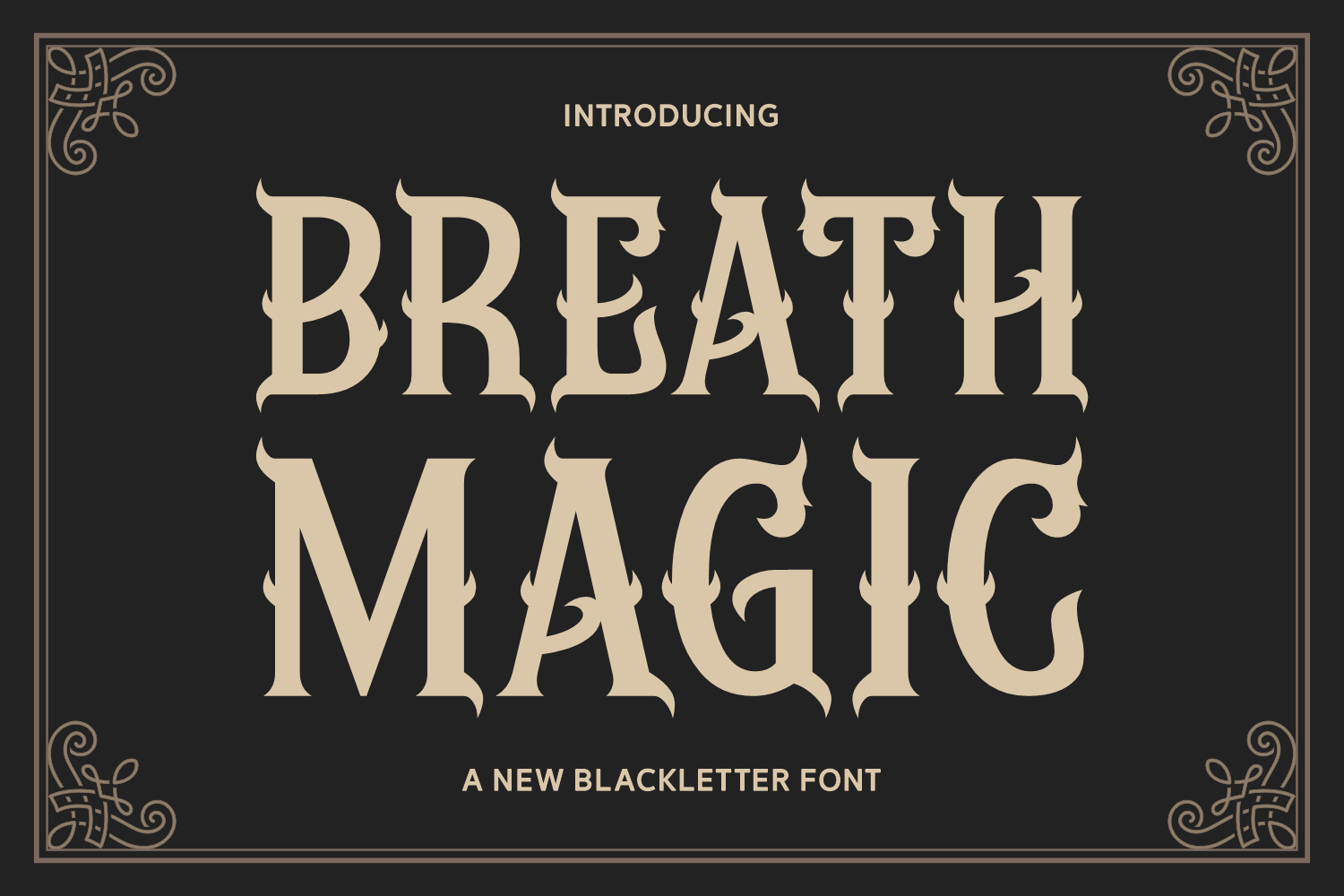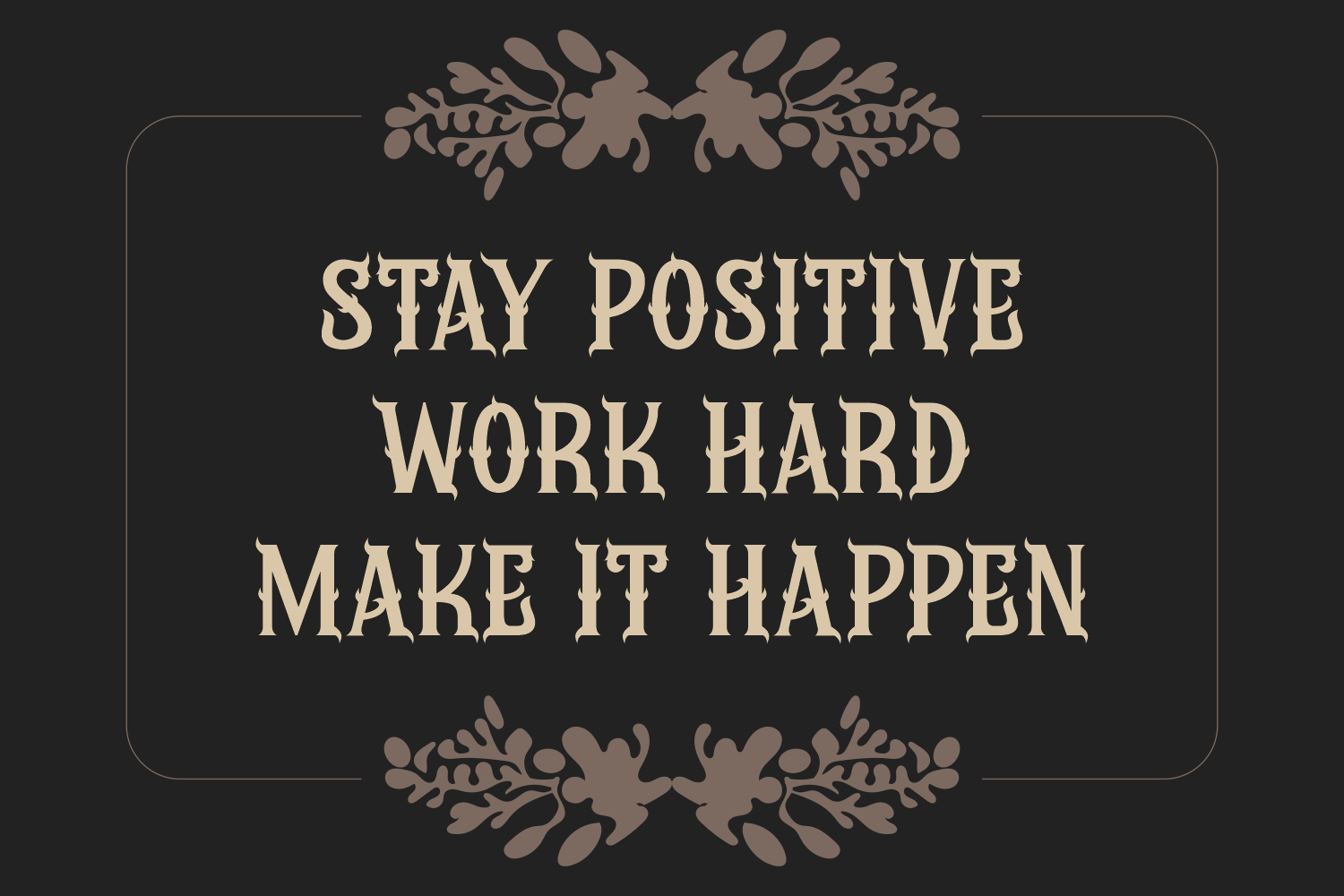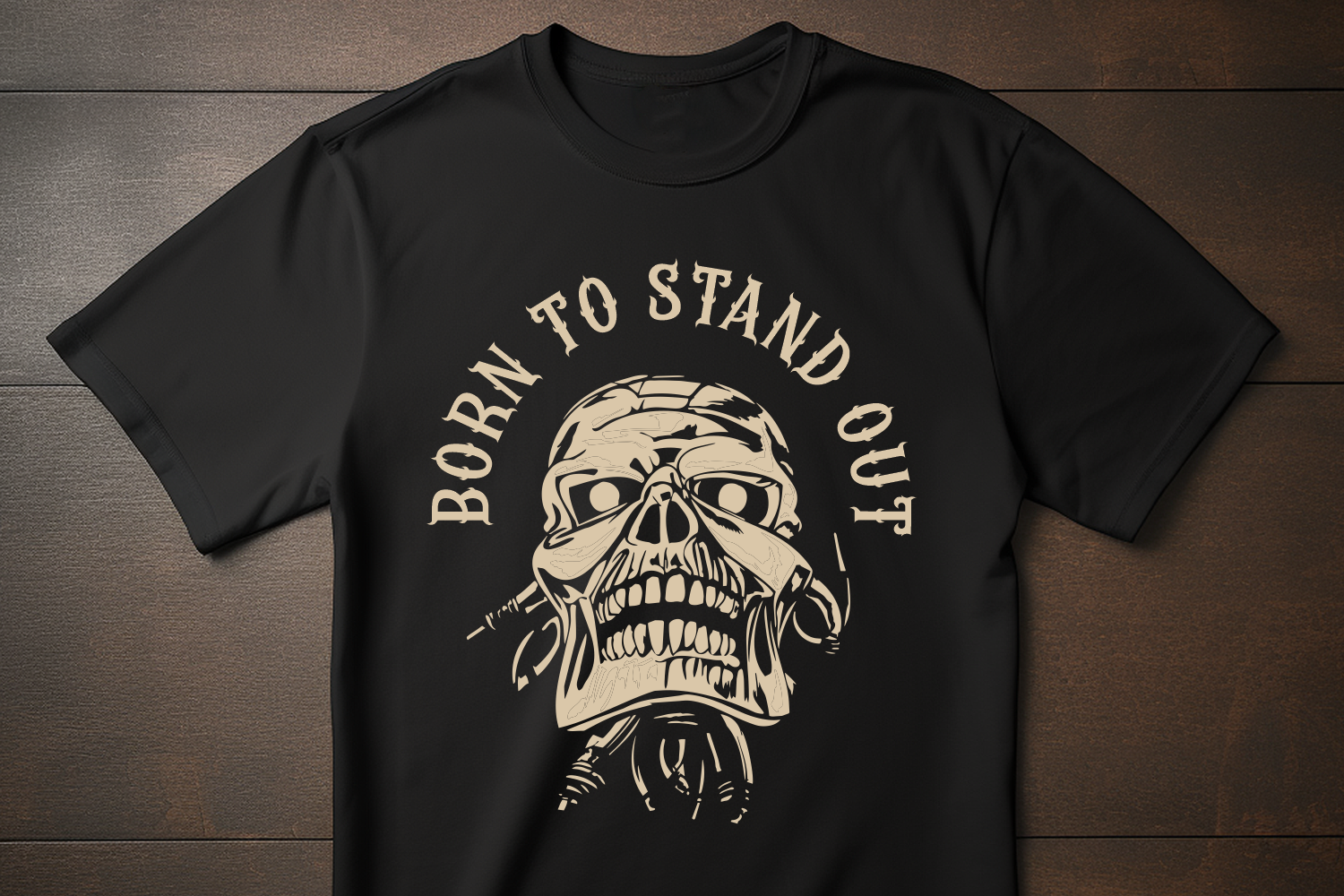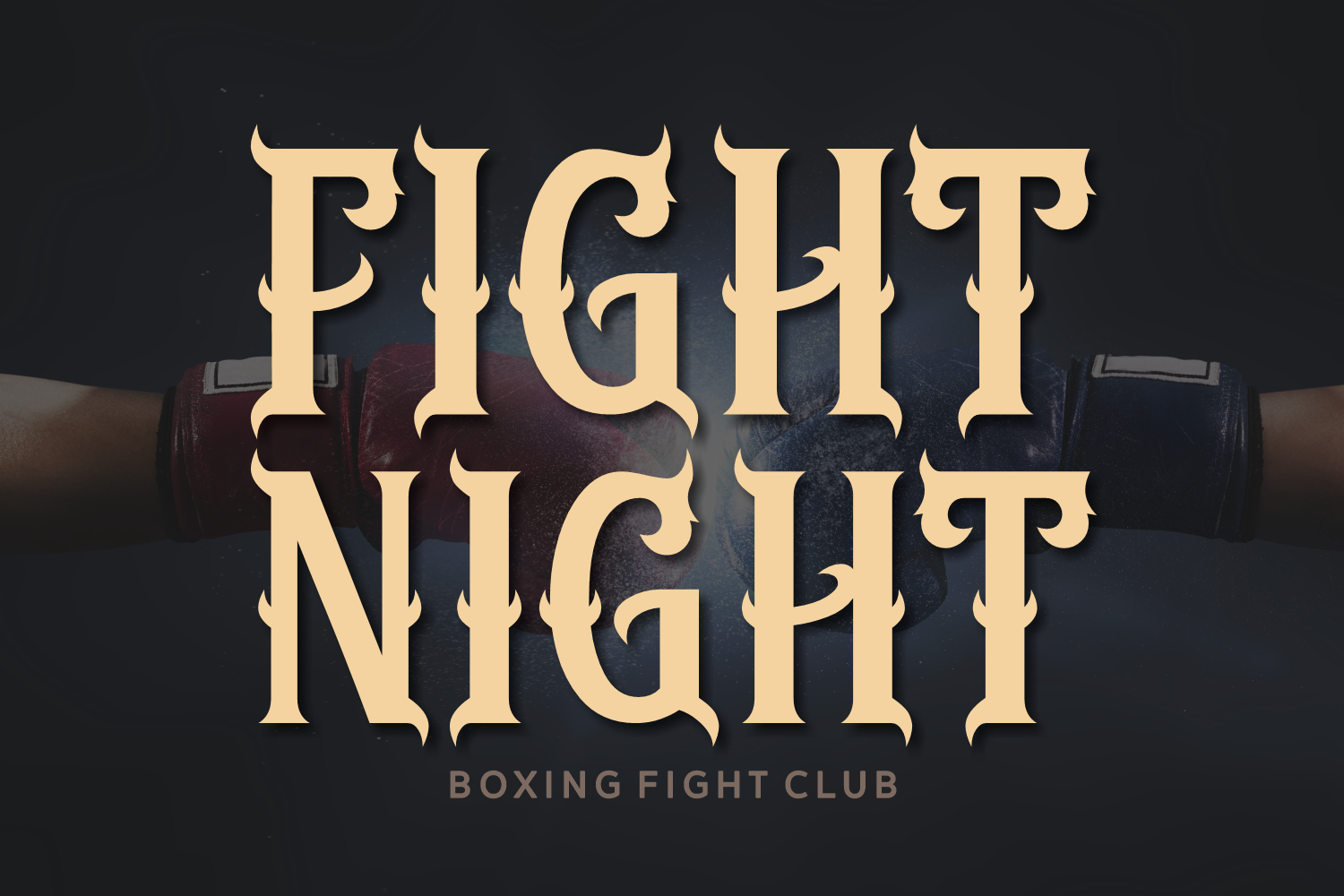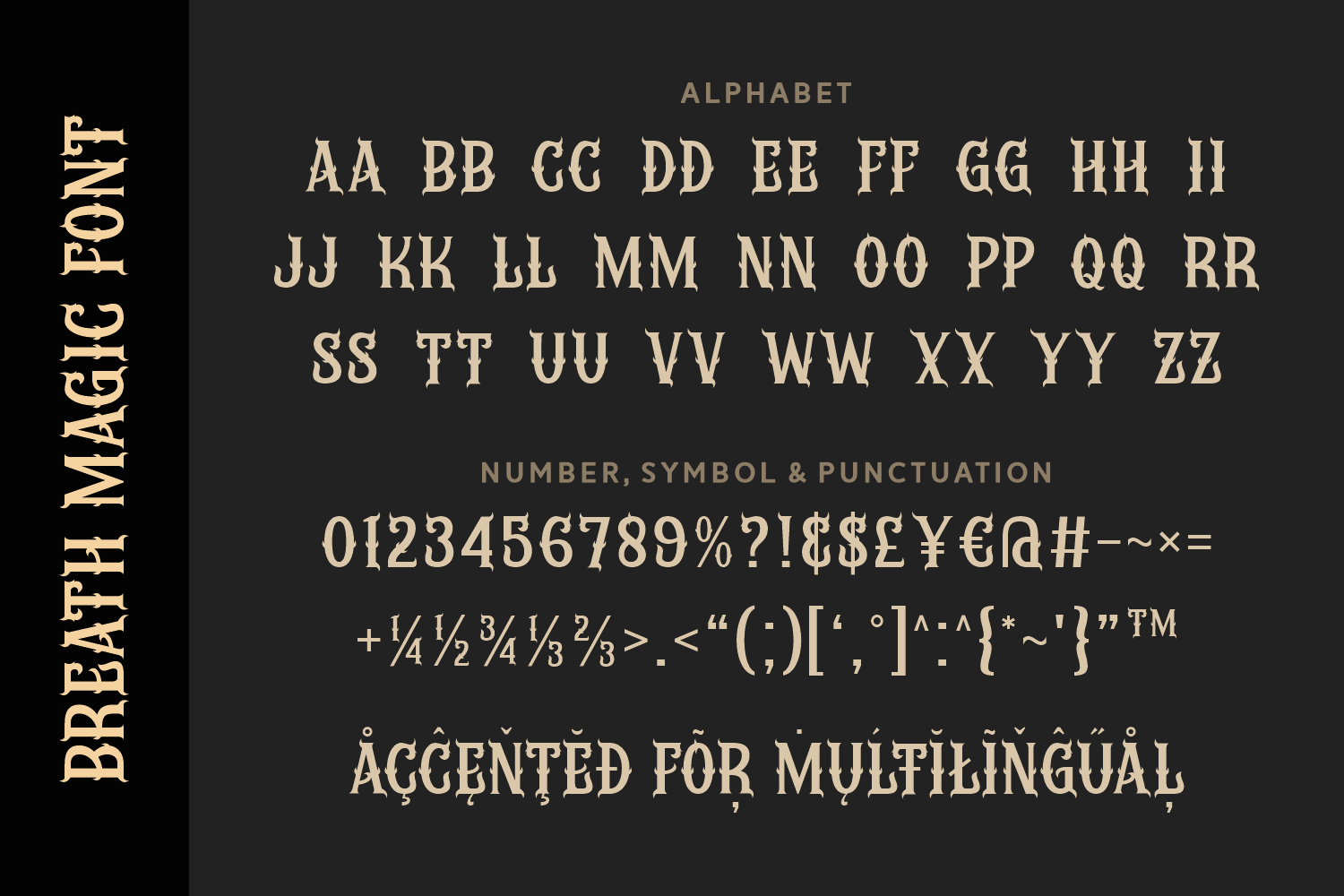
Breath Magic is an enchanting blackletter font with sharp, thorn-like serifs and a medieval fantasy spirit. Its bold, spellbinding presence makes it ideal for mystical titles, dark packaging, gothic logos, and magical branding. Elegant yet fierce, this typeface breathes old-world charm into any modern design.